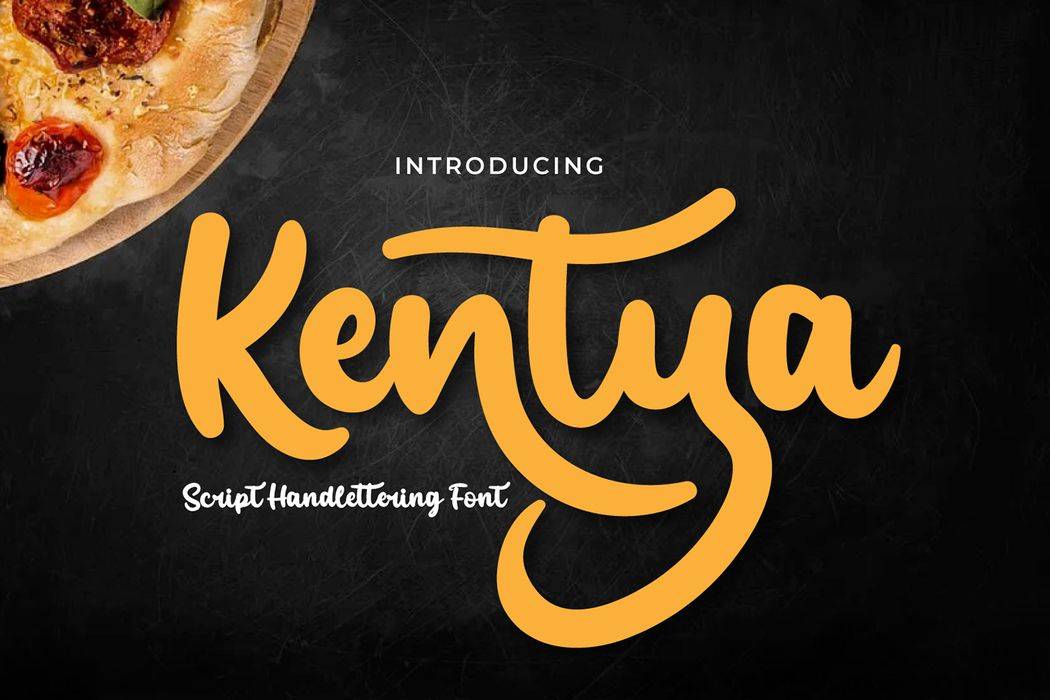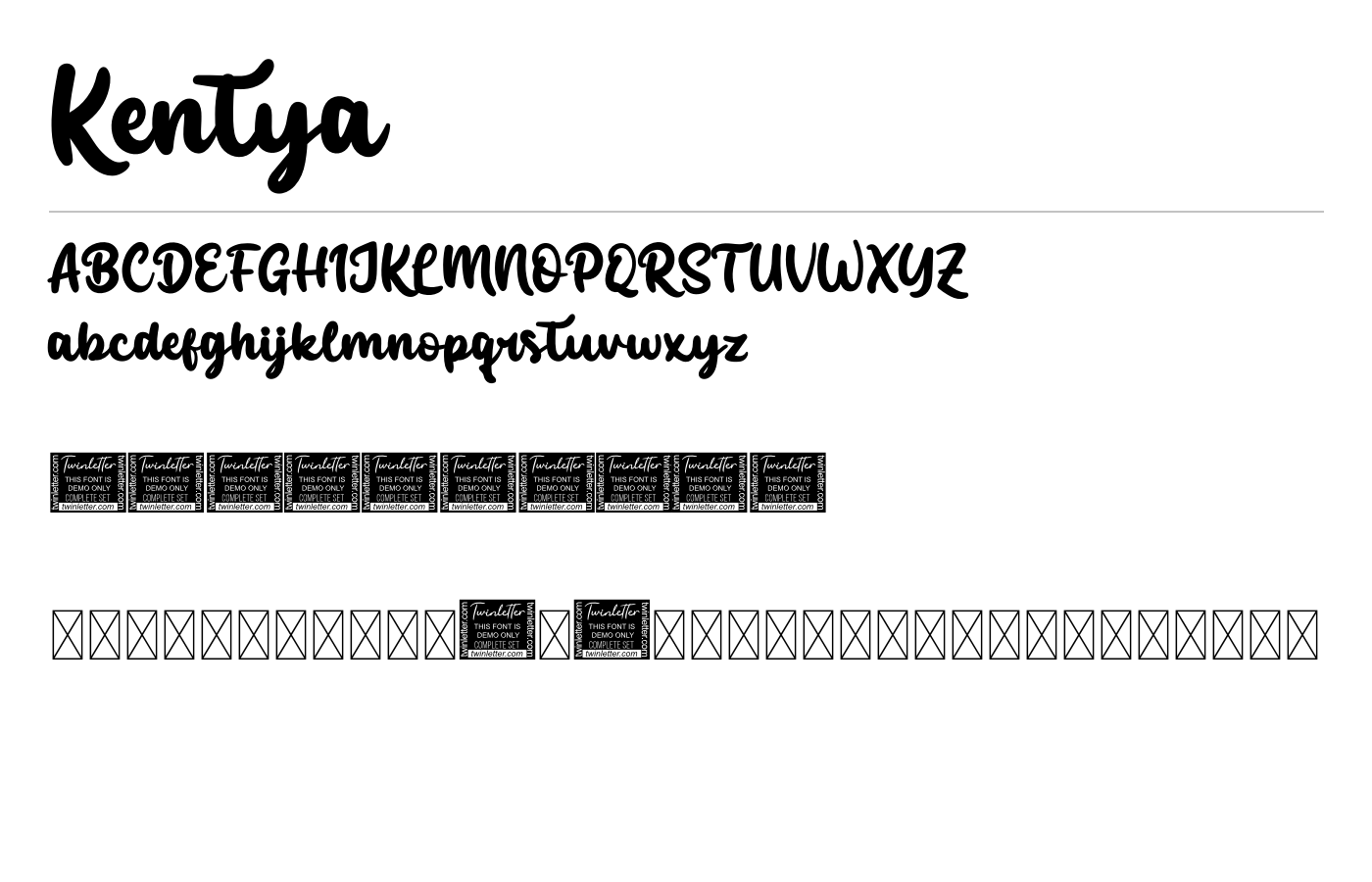
Kentya is a bold, playful script font with a casual handwritten feel, featuring smooth, rounded strokes and lively letterforms that convey warmth and friendliness. Its moderate x-height and consistent stroke weight offer strong readability, making it ideal for branding, invitations, social media graphics, and youthful, informal designs that seek a personal touch. This font works well where a vibrant, approachable personality is desired.
Kentya Font
About Kentya Font